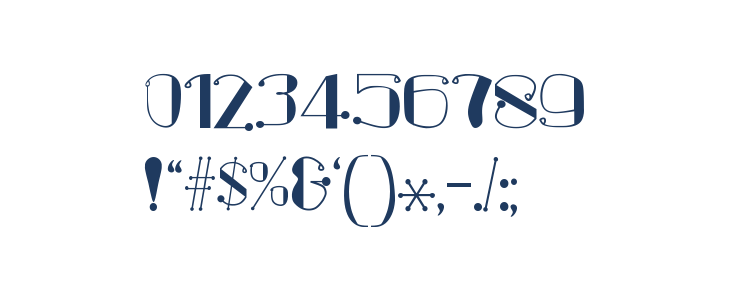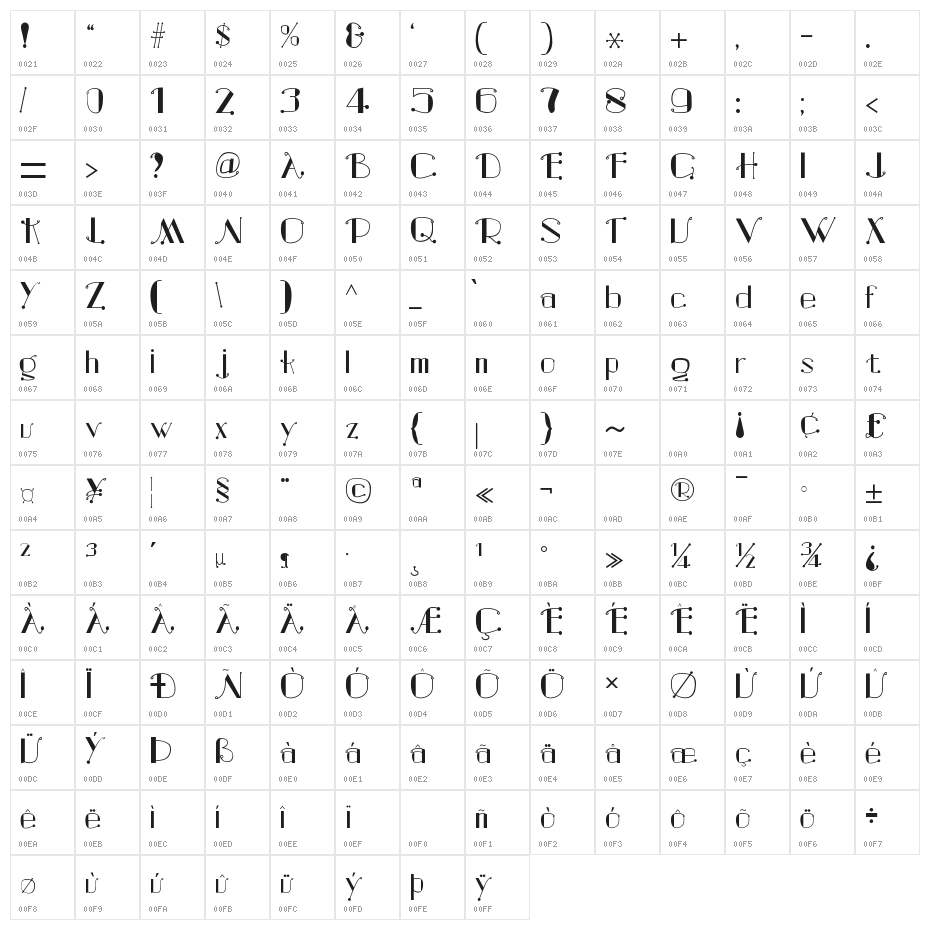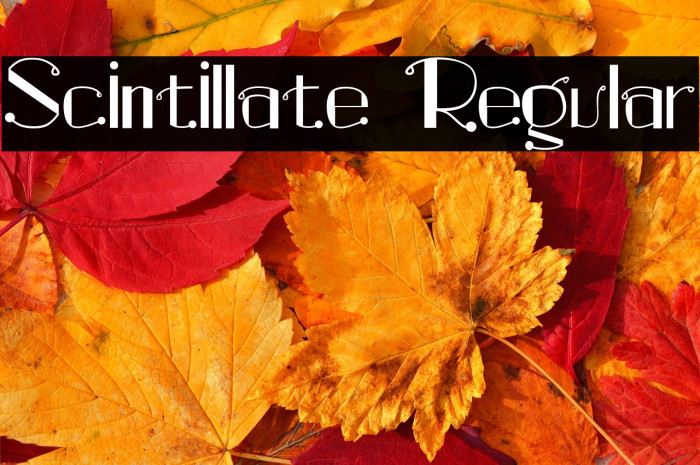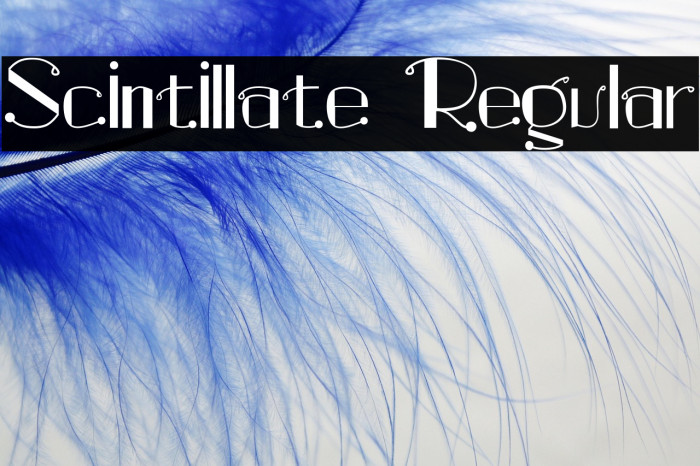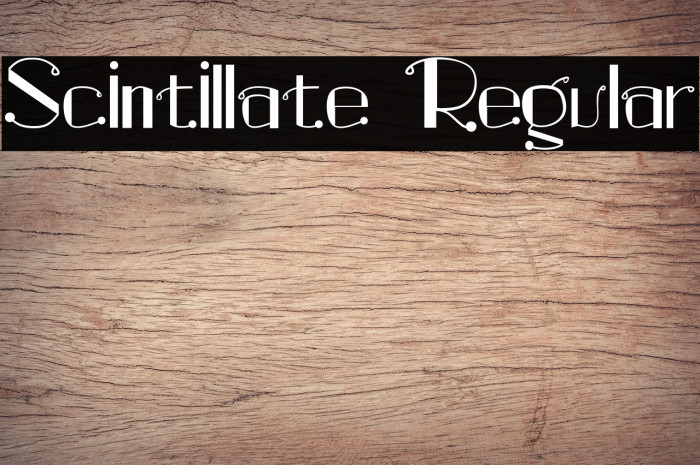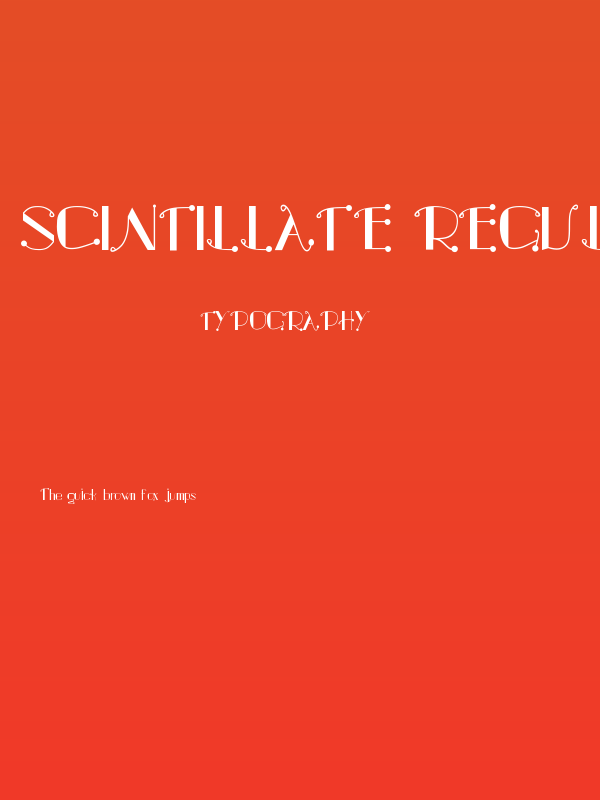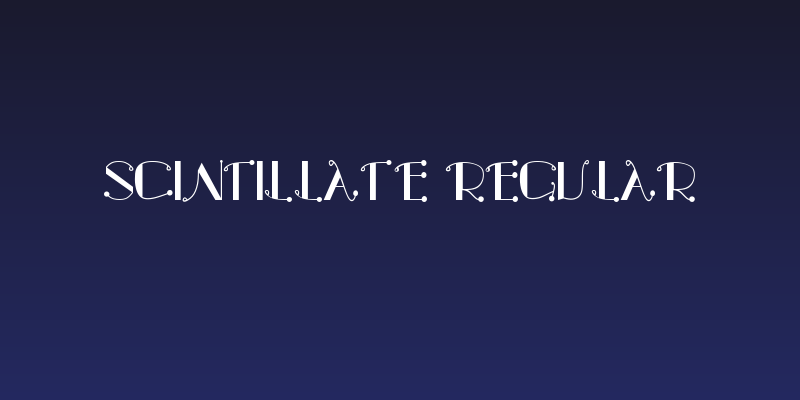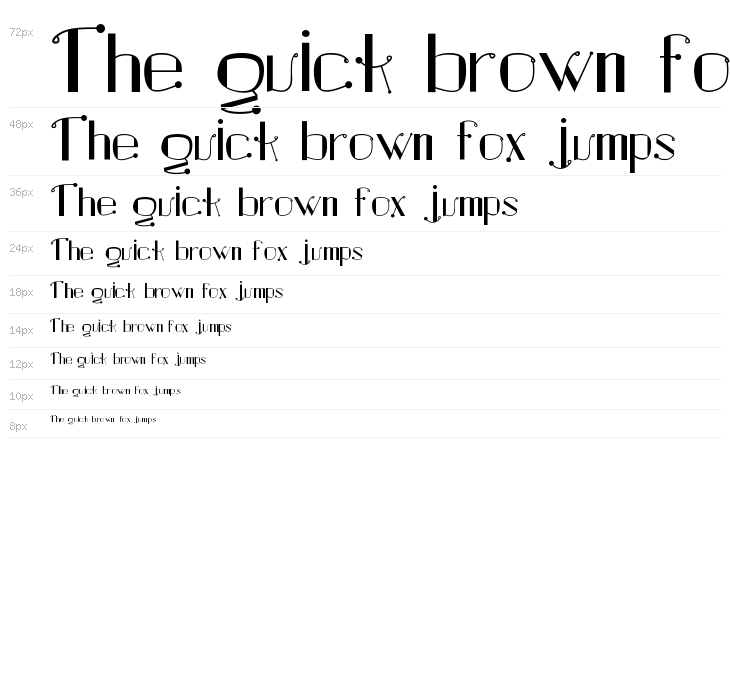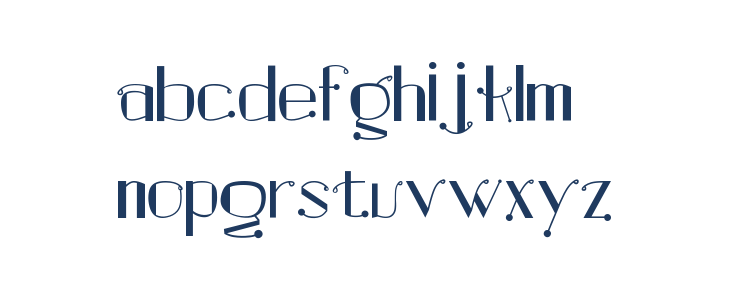
Scintillate Regular Font
Scintillate Regular Description
This font features a unique and playful design with decorative elements that resemble small dots and curls at the ends of strokes, giving it a whimsical and artistic look. The characters are bold and have a modern flair, with a mix of thick and thin lines that create a dynamic visual contrast. The uppercase and lowercase letters maintain a consistent style, while the numbers and special characters are designed to match the overall aesthetic. This font stands out with its creative and eye-catching appearance, making it suitable for projects that require a touch of elegance and creativity.